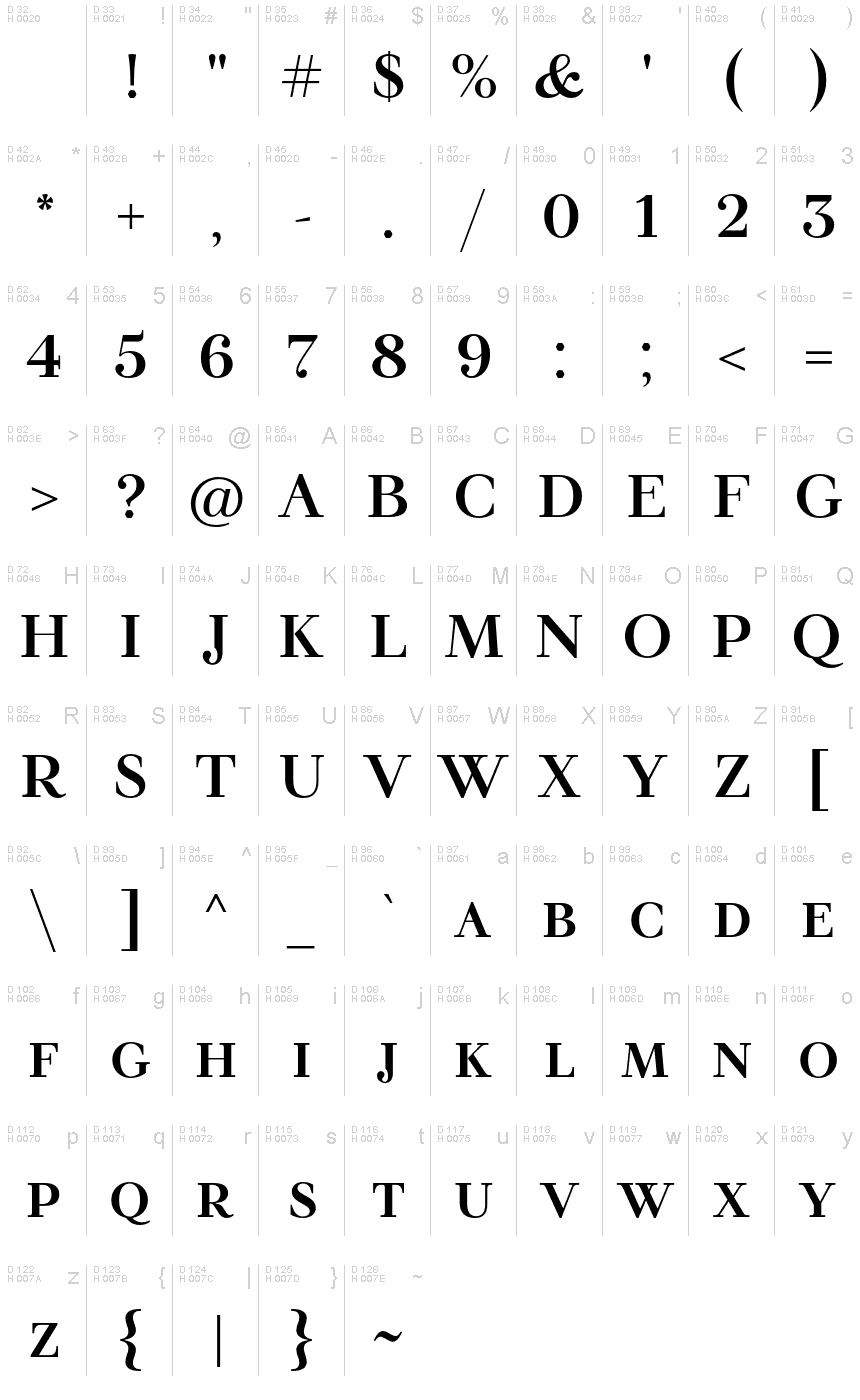
TT Tsars B Trial Bold
TT Tsars B Bold is a majestic serif font designed by TypeType. Its bold and powerful appearance makes it perfect for projects that require a strong and authoritative look, such as headlines, logos, posters, and branding materials. With its elegant serifs and fine details, TT Tsars B Bold is also suitable for more sophisticated designs like book covers or editorial layouts. Whether you're looking to make a statement or add a touch of elegance to your project, TT Tsars B Bold will help you achieve your vision with ease.